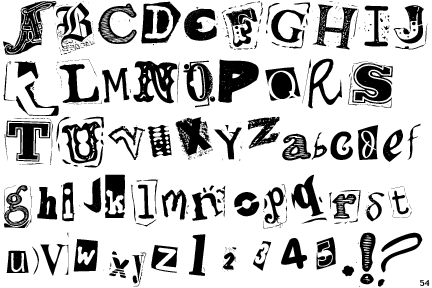
actually i take it all back, it is a time-tested procrastination technique to hit up your favorite forum and ask for font advice 🙂
Bingo. I've got to the stage where I don't feel like doing any more writing (let alone more experiments), so font selection suddenly seems very important (although I know it's not really).
Although as MatthewCobb says, it's likely that only my examiners (and maybe some lab members) will ever look at it, I think I'd prefer not to open my thesis and have my first reaction be "ugh, Times New Roman". After all, it's the closest thing to a book that I'll ever produce, I might as well have something that I find pleasing at least.
After all, it's the closest thing to a book that I'll ever produce, I might as well have something that I find pleasing at least.
Bingo. Even if noone ever reads the *&#%$ thing, that document will follow you and you should at least be happy with how it looks...
(I've actually referred to my dissertation about once a year for the past 10 years for equations or references, so when I pick it up I don't want to see something ugly.)
As I prefer sans serif faces I have always used my favourite one of these - Optima. But of those I have (ie the faces included with OS X) if I had to choose a serif one, it would probably be Garamond.
Then again, I've never agreed with the whole "legibility" issue with faces. Sure, something like Times is more legible than some of the more obnoxious sans serif faces like Impact, but provided you make a sensible choice (Optima, Helvetica, etc) then provided it's at a sensible size I certainly wouldn't preclude sans serif faces purely for legibility reasons.
I strongly reccomend Ransom. Invented by Apple, and used to sell their printers, it was quite a popular font for business letters back in the 70's.
I did my post-PhD thesis in Ransom, all 150 pages of it, and everyone remarked on the font when I handed it in.
Highly recomended indeed.
For what it's worth, the default font that LaTeX uses is called Computer Modern.
Also, if you use a lot of math, equations, proofs, lots of footnotes, etc. you will soon come to appreciate how easy it is to make these work in LaTeX.
Writing LaTeX "code" is a bit like writing HTML, so if you're familiar with that, it's not a stretch to learn.
*ouch* Arial is a sans-serif typeface, for longer texts you should always use serif typefaces (Times, Palatino, etc.). Serifs are the short lines stemming from and at an angle to the upper and lower ends of the strokes of a letter (according to Webster ;-)). These appendixes have the purpose of helping the reader's eye connect all the sequence of letters.
That said, just stick to Times (New Roman). You're writing a thesis, not a fancy magazine.
I strongly reccomend Ransom. Invented by Apple, and used to sell their printers, it was quite a popular font for business letters back in the 70's.
I did my post-PhD thesis in Ransom, all 150 pages of it, and everyone remarked on the font when I handed it in.
Highly recomended indeed.
You used this:
for your PhD Thesis??? Did you write a PhD thesis in criminology?? 😀
EDIT: And what kind of "business letters" are you talking about *rotfl*
You used this:
for your PhD Thesis??? Did you write a PhD thesis in criminology?? 😀
EDIT: And what kind of "business letters" are you talking about *rotfl*
😀😀 I used to mark and proofread. In the UK, Times New Roman and Arial are the expected standards, Garamond? No, and using Ransom, whilst mildly amusing the reader just isn't going to work.